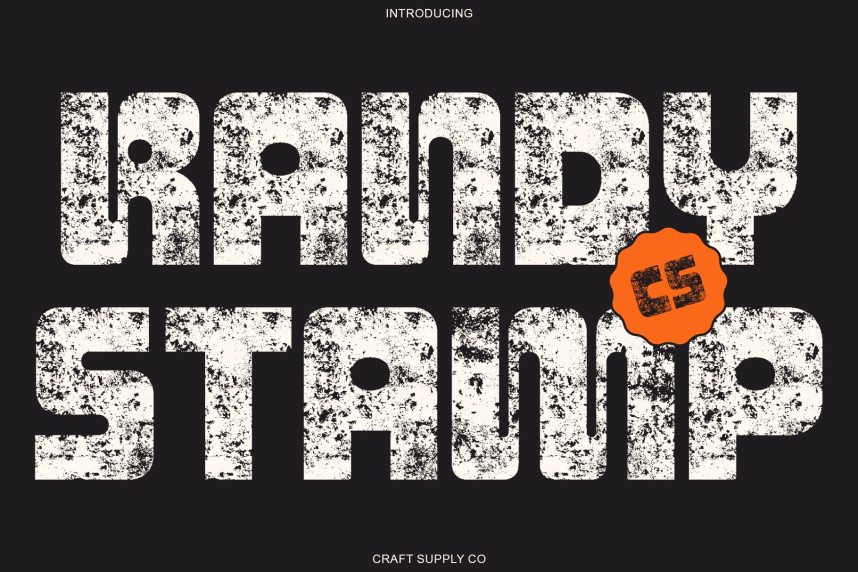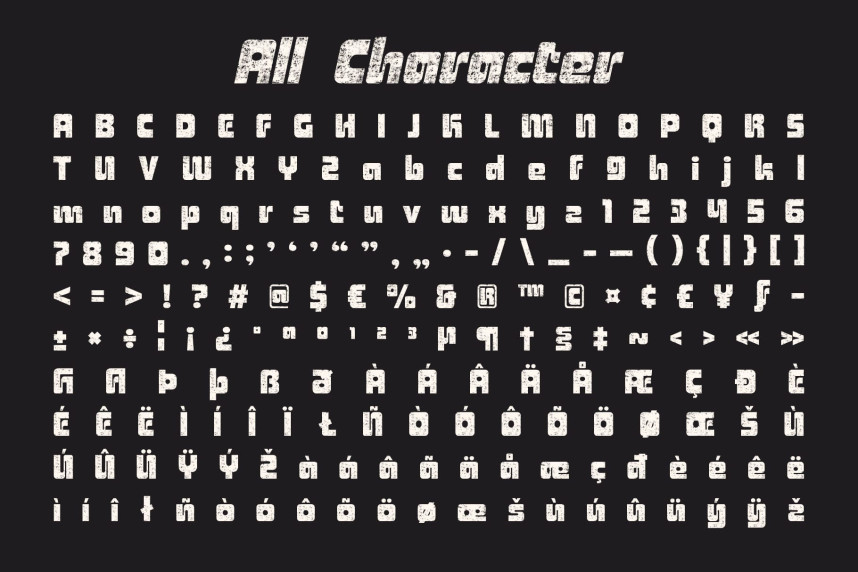
CS Randy Stamp Font
CS Randy Stamp Font: Bold Strength with Vintage Soul Bold Display Font with Stamp Texture. This is a bold display font that commands attention with its strong weight and powerful presence. Combining futuristic design elements with smooth, curving corners, this typeface brings a fresh, modern energy to any project. The addition of a subtle stamp texture adds a vintage twist, creating a unique contrast between modern sharpness and timeless character.